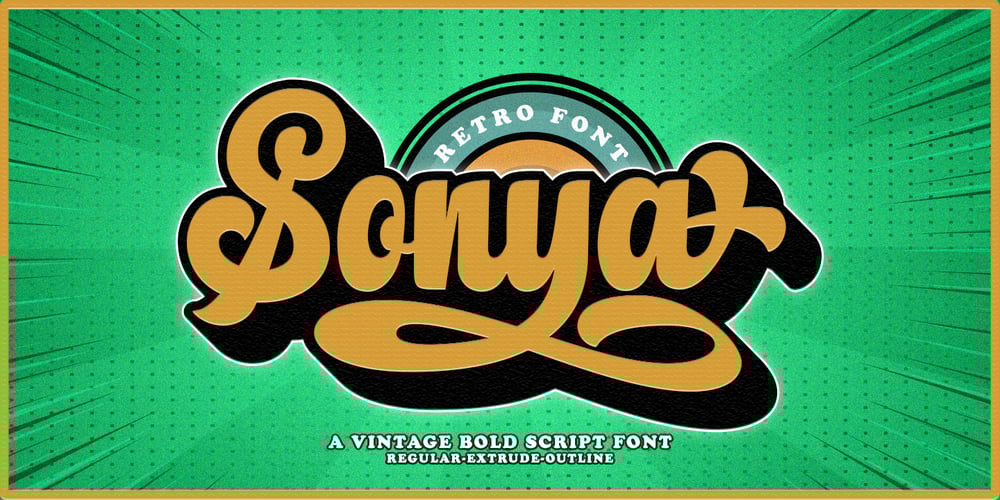
Sonya Script Font Family was designed by Rizki Andika and published by Letterfreshstudio. Sonya Script contains 3 styles and family package options. Sonya Retro Font is an urban retro font with the style like a logotype lettering.was created to help you designing logotype or lettering style for your Brand or your clients.it has an extensive lingual support, covering European and Asian Latin scripts.The font contains all characters you’ll ever need, including all punctuation and numbers.Multilingual SupportAlternates,Regular/Extrude/OutlineThankyou